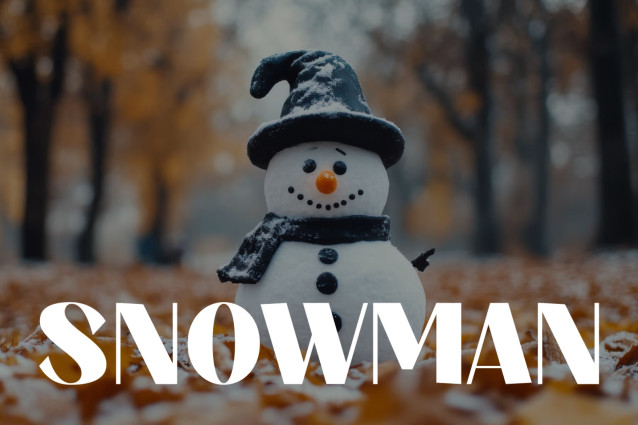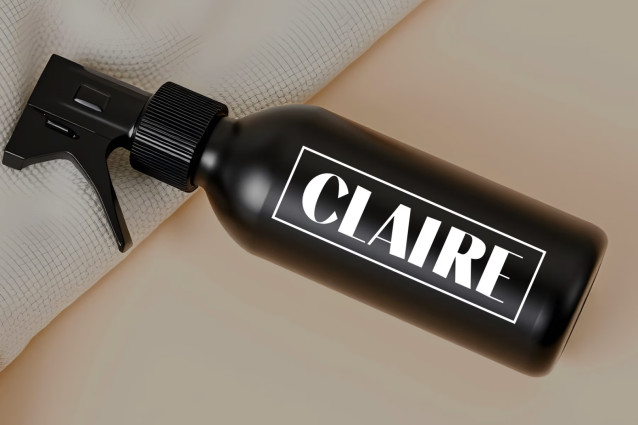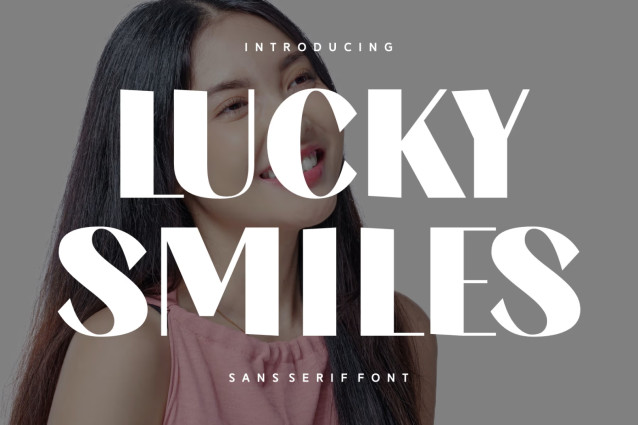
Lucky Smiles Font
Immerse yourself in the striking world of “Lucky Smiles”, a one-of-a-kind Sans Serif font full of splendor and refinement. Perfectly suited for modern photography undertones, this font carries an accent of authenticity, rendering it ideal for apparel design. Delve into the pages of your favorite book where this delightful font sits beautifully, offering a clean and sleek finish that enthralls its readers. It also breathes life into branding, making business messages stand out on cards, magazines, and packaging.
The smooth lines of “Lucky Smiles” create an appealing, trendy look for T-shirt designs, while its lovable touch makes it a prime choice for heartwarming greeting cards and quotes. Its versatility extends to multilingual support, making it universally appealing and adaptable. Witness the enchantment of “Lucky Smiles”, where elegance meets modernity, and style dances with functionality.